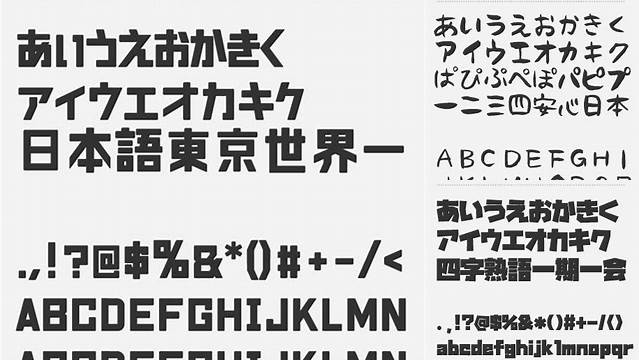
Free Japanese Bold Font Generator For Instagram
Are you looking to spice up your Instagram game with some unique Japanese-style bold fonts? Well, you've come to the right place, guys! In this article, we're diving deep into the world of Japanese bold fonts and how you can generate them for free to make your Instagram posts stand out. We'll cover everything from why these fonts are so eye-catching to how you can use online generators to create them effortlessly. So, buckle up and let's get started on this font-tastic journey!
What Makes Japanese Bold Fonts So Appealing?
When we talk about Japanese bold fonts, we're not just talking about a different typeface. We're talking about a whole aesthetic that can bring a unique flair to your Instagram presence. These fonts often incorporate elements of traditional Japanese calligraphy, giving them an elegant yet powerful look. Imagine your posts featuring characters that look like they've been brushed onto the screen with a master's touch. That's the kind of impact we're aiming for!
One of the main reasons these fonts are so appealing is their visual weight. The bold strokes create a strong impression, making your text pop and grabbing attention instantly. Think about scrolling through your Instagram feed – what makes you stop? It's usually something that stands out, something that's different. And a well-placed Japanese bold font can do just that. It adds a touch of mystique and sophistication, drawing viewers in and making them curious about what you have to say.
But it's not just about aesthetics. These fonts also carry a cultural significance. Japanese calligraphy, or Shodo, is an art form that has been practiced for centuries. Each stroke is imbued with meaning and intention, and this history adds depth to the font itself. By using these fonts, you're not just making your posts look good; you're also tapping into a rich cultural heritage. This can be particularly effective if you're posting content related to Japanese culture, travel, or even just want to add an exotic touch to your brand.
Another key aspect is the versatility of Japanese bold fonts. They can be used in a variety of contexts, from eye-catching headlines to stylish captions. They work particularly well in designs that aim for a minimalist yet impactful look. The boldness of the font does the heavy lifting, allowing you to keep the rest of your design clean and uncluttered. This makes them perfect for Instagram, where visuals are key and you want your text to complement, not compete with, your images.
Finally, the uniqueness of these fonts is a major draw. In a sea of standard fonts, using a Japanese bold font can help you carve out your own niche. It's a way to show off your creativity and attention to detail. Plus, it can make your profile more memorable. People are more likely to remember a profile that uses distinctive fonts, and this can translate into more followers, more engagement, and a stronger brand identity. So, if you're looking for a way to set yourself apart on Instagram, exploring Japanese bold fonts is definitely a smart move. Trust me, guys, you won't regret adding this unique touch to your Insta-game!
How to Use a Japanese Bold Font Generator for Free
Okay, so you're convinced that Japanese bold fonts are the way to go. Awesome! Now, let's talk about how you can actually create them without spending a dime. The good news is, there are tons of free online Japanese bold font generators out there that make the process super easy. You don't need to be a graphic designer or a font expert to get started. All you need is a few minutes and a little bit of creativity.
The first step is to find a reliable generator. A quick search for "Japanese bold font generator free" will give you a plethora of options. Look for generators that have a clean interface and positive reviews. Some popular ones include those offered by font styling websites and even some dedicated Instagram font tools. The key is to find one that offers a variety of font styles and allows you to preview your text before you commit to it.
Once you've found a generator, using it is usually pretty straightforward. Most generators have a simple text box where you can type in the text you want to transform. This could be your Instagram bio, a caption for a post, or even a message for your stories. Once you've typed in your text, the generator will typically give you a range of font options to choose from. This is where you can start experimenting with different styles and see what looks best for your content.
When selecting a font, think about the overall vibe you're going for. Do you want something that's sleek and modern? Or something that's more traditional and calligraphic? Many generators will offer variations within the Japanese bold font category, so you can find the perfect match for your aesthetic. Some might have options that mimic brushstrokes, while others might have a more geometric, contemporary feel.
Previewing your text is crucial. Most generators will allow you to see how your text will look in different fonts before you finalize your choice. Take advantage of this feature! Try out a few different options and see how they look with your content. Consider the size of the font and how it will appear on different devices. You want to make sure it's legible and eye-catching, no matter how your followers are viewing your posts.
Once you've found the perfect font, the next step is usually to copy the generated text. Most generators will provide a simple "copy" button that allows you to easily grab the stylized text. From there, you can paste it directly into your Instagram bio, caption, or story. It's as simple as that!
But here's a pro tip, guys: Instagram doesn't actually support custom fonts in the traditional sense. What these generators are doing is using Unicode characters to create the look of a different font. This means that the text you generate is essentially a series of symbols that resemble the font you've chosen. While this works great for adding visual flair, it also means that the text might not be universally supported across all devices and platforms. So, always double-check how your text looks on different devices to ensure it's displaying correctly.
Using a free Japanese bold font generator is a fantastic way to add a unique touch to your Instagram presence. It's easy, it's free, and it can make a big impact. So, go ahead and give it a try! Experiment with different fonts, find your style, and watch your Instagram game level up. You got this!
Best Free Japanese Bold Font Generators Online
Alright, let's get down to the nitty-gritty and talk about some of the best free Japanese bold font generators you can find online. With so many options out there, it can be a bit overwhelming to choose the right one. So, I've done some digging and rounded up a few top contenders that offer a great mix of ease of use, font variety, and overall reliability. These generators are your secret weapon for creating eye-catching Instagram content that's sure to turn heads.
First up, we have the classic Font Generator websites. These sites are like the Swiss Army knives of font styling. They offer a wide range of font options, including several that mimic Japanese bold fonts. What's great about these sites is their simplicity. You just type in your text, and they instantly generate a bunch of different font styles for you to choose from. You can scroll through the options, preview your text in each font, and then copy the one you like best. Many of these sites also offer additional customization options, like text size and color, so you can really fine-tune your look.
Next on the list are some dedicated Instagram font tools. These tools are specifically designed for Instagram, so they often have features that are tailored to the platform. For example, some of them will show you how your font will look in an Instagram bio or caption, so you can get a realistic preview. They also tend to have a good selection of Japanese bold fonts that are optimized for Instagram's display requirements. This can be a big plus, as it ensures that your fonts will look great on both desktop and mobile devices.
Another excellent option is to explore websites that focus specifically on Unicode text generators. As we mentioned earlier, these generators work by converting your text into Unicode characters that resemble different fonts. This is how they're able to create the look of Japanese bold fonts without actually using traditional font files. Unicode text generators often have a wide variety of styles to choose from, including many that are inspired by Japanese calligraphy. They're also generally very reliable, as Unicode characters are widely supported across different platforms and devices.
When you're checking out these generators, there are a few key things to keep in mind. First, consider the variety of fonts they offer. A good generator should have a range of Japanese bold font styles, from more traditional to more modern. This will give you the flexibility to experiment and find the perfect font for your brand.
Second, think about ease of use. The best generators are simple and intuitive to use. You shouldn't have to jump through hoops to generate your text. Look for generators with a clean interface and clear instructions. The easier it is to use, the more likely you are to actually use it!
Third, pay attention to the preview feature. A good generator will let you preview your text in different fonts before you copy it. This is crucial for making sure your font looks exactly the way you want it to. Check how the font looks at different sizes and on different backgrounds. You want to be sure it's legible and eye-catching.
Finally, don't forget to test your generated text on different devices. As we discussed, Unicode fonts might not display perfectly on all devices, so it's always a good idea to double-check. This will ensure that your Instagram posts look consistent no matter how your followers are viewing them.
So, guys, with these free Japanese bold font generators at your fingertips, you're well-equipped to take your Instagram game to the next level. Go forth, experiment with fonts, and create some stunning content! Your followers will thank you for it.
Tips for Using Japanese Bold Fonts Effectively on Instagram
So, you've got your Japanese bold fonts ready to go. Awesome! But before you start slapping them all over your Instagram, let's talk about how to use them effectively. Just like any design element, fonts should be used strategically to enhance your overall aesthetic and message. Using Japanese bold fonts well can really make your content pop, but overdoing it can have the opposite effect. So, let's dive into some tips and tricks for using these fonts like a pro, shall we?
First and foremost, consider your brand. Your font choices should align with your overall brand identity. If your brand is sleek and modern, you might opt for a more minimalist Japanese bold font. If your brand is more traditional or artistic, you might go for a font that mimics brushstrokes or calligraphy. The key is to choose fonts that complement your brand's personality and message.
Consistency is key, guys. While it's fun to experiment with different fonts, try to stick to a consistent style across your Instagram profile. This will help create a cohesive and professional look. Maybe choose one or two Japanese bold fonts that you really love and use them consistently in your bio, captions, and stories. This will make your profile more recognizable and memorable.
Don't go overboard with the boldness. Japanese bold fonts are designed to grab attention, but too much boldness can be overwhelming. Use them strategically to highlight key words or phrases, but avoid using them for large blocks of text. A little goes a long way, especially when it comes to bold fonts. Think of them as a spice – a dash can add flavor, but too much can ruin the dish.
Consider the context of your post. The font you choose should be appropriate for the content you're sharing. If you're posting a travel photo from Japan, a Japanese bold font might be a perfect fit. But if you're posting something completely unrelated, it might feel out of place. Think about how the font complements the image and the message you're trying to convey.
Legibility is crucial. No matter how cool a font looks, it's not effective if people can't read it. Choose fonts that are clear and easy to read, especially on small screens. Avoid fonts that are too ornate or stylized, as they can be difficult to decipher. Remember, the goal is to communicate your message effectively, not to confuse your audience.
Use Japanese bold fonts for emphasis. These fonts are great for drawing attention to specific words or phrases. Use them in your captions to highlight key points, calls to action, or even just to add a bit of visual interest. This can help your message stand out in a crowded feed.
Experiment with different font combinations. While consistency is important, you can also play around with combining Japanese bold fonts with other fonts. For example, you might use a bold font for your headline and a simpler font for the body text. This can create a nice visual contrast and make your content more engaging. Just be sure to choose fonts that complement each other, rather than clash.
Think about the overall design. Your font choices should work in harmony with the rest of your design elements, such as colors, images, and layout. Consider how the font looks against different backgrounds and in different sizes. You want to create a cohesive and visually appealing design that grabs attention and communicates your message effectively.
Finally, don't be afraid to experiment! The best way to learn how to use Japanese bold fonts effectively is to try them out. Play around with different styles, sizes, and combinations. See what works best for your brand and your audience. And most importantly, have fun with it! Instagram is a visual platform, so let your creativity shine.
So there you have it, guys! Armed with these tips, you're ready to rock the Japanese bold font look on Instagram. Go forth and create some stunning content that's sure to make your profile stand out from the crowd. Happy posting!
In conclusion, Japanese bold fonts offer a fantastic way to add a unique and eye-catching flair to your Instagram presence. They bring a touch of elegance, tradition, and modernity, making your content stand out in a sea of standard fonts. By using free online Japanese bold font generators, you can easily create stylish text for your bios, captions, and stories without spending any money or requiring any design expertise.
We've explored what makes these fonts so appealing, from their visual weight and cultural significance to their versatility and uniqueness. We've also walked through the simple process of using a Japanese bold font generator, highlighting the importance of previewing your text and testing it on different devices to ensure it looks perfect across all platforms.
We've also rounded up some of the best free generators available online, giving you a starting point for your font adventures. Whether you opt for a general font styling website, a dedicated Instagram font tool, or a Unicode text generator, the key is to find a tool that offers a variety of styles, is easy to use, and allows you to preview your text effectively.
And finally, we've shared some essential tips for using Japanese bold fonts effectively on Instagram. From aligning your font choices with your brand identity and maintaining consistency to using bold fonts for emphasis and considering the overall design, these guidelines will help you create content that's both visually stunning and communicates your message clearly.
So, guys, if you're looking to spice up your Instagram game and make a lasting impression, exploring Japanese bold fonts is definitely worth your while. They're a simple yet powerful tool for expressing your creativity and setting your profile apart. Go ahead, give it a try, and watch your Instagram presence transform. Happy creating, and happy posting!